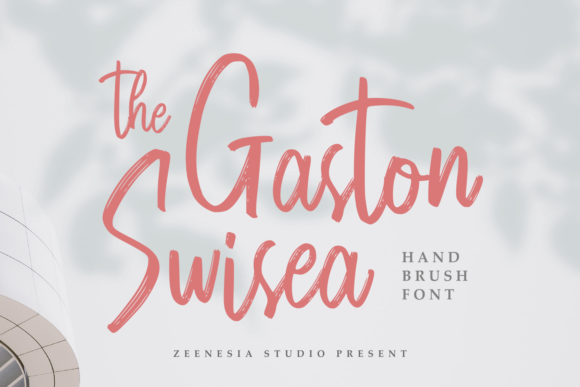
Introducing The Gaston Swisea Font: A Symphony of Elegance and Charm
Embark on a typographic journey with The Gaston Swisea Font, a captivating handwritten script font that breathes life into your creative endeavors. Its graceful strokes and lively characters pirouette across the page, adding a touch of magic to every word and phrase.
With The Gaston Swisea Font, you'll discover a world of possibilities. Its versatile nature makes it the perfect companion for a variety of projects, from heartfelt wedding invitations to whimsical social media posts. Let your imagination soar as you craft designs that exude elegance, charm, and a hint of playfulness.
Step into the realm of beauty and sophistication with The Gaston Swisea Font. Its enchanting characters possess a timeless allure, effortlessly elevating your designs to new heights. Whether you're creating logos, branding materials, or personal correspondence, this font will leave a lasting impression on all who behold it.
Experience the Joy of Creation with The Gaston Swisea Font
Unleash your creativity with The Gaston Swisea Font and watch your designs come to life. Its free-flowing style lends itself beautifully to handwritten notes, adding a personal touch to every message. Whether you're sending heartfelt letters to loved ones or creating stunning greeting cards, The Gaston Swisea Font will transform your words into works of art.
Explore the Enchanting World of The Gaston Swisea Font
The Gaston Swisea Font is more than just a font; it's an invitation to embark on a creative adventure. With its ability to evoke emotions and capture hearts, this font will become an indispensable tool in your design arsenal. Its versatility and charm will elevate your projects to new heights, leaving a lasting impression on your audience.
Join the ranks of creative visionaries who have embraced The Gaston Swisea Font and witnessed the transformative power of its elegance and grace. Let this font be your muse as you craft designs that captivate, inspire, and leave an indelible mark on the world.